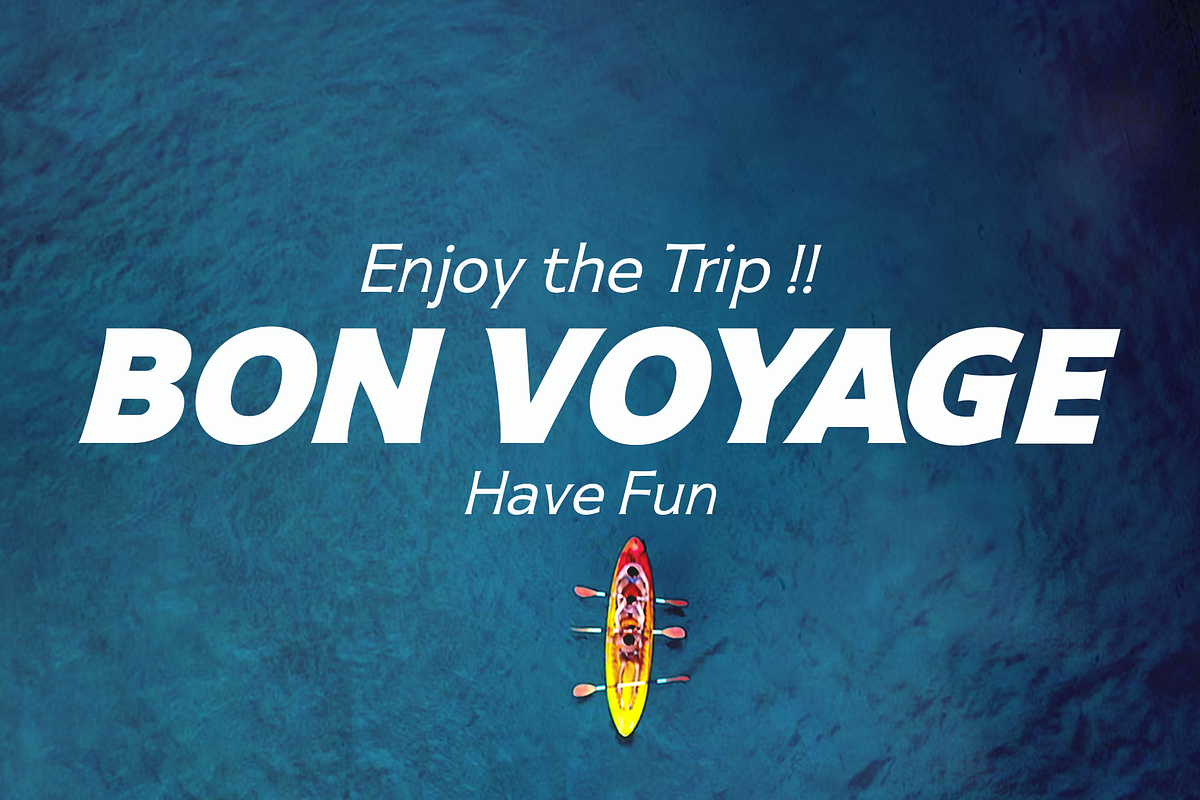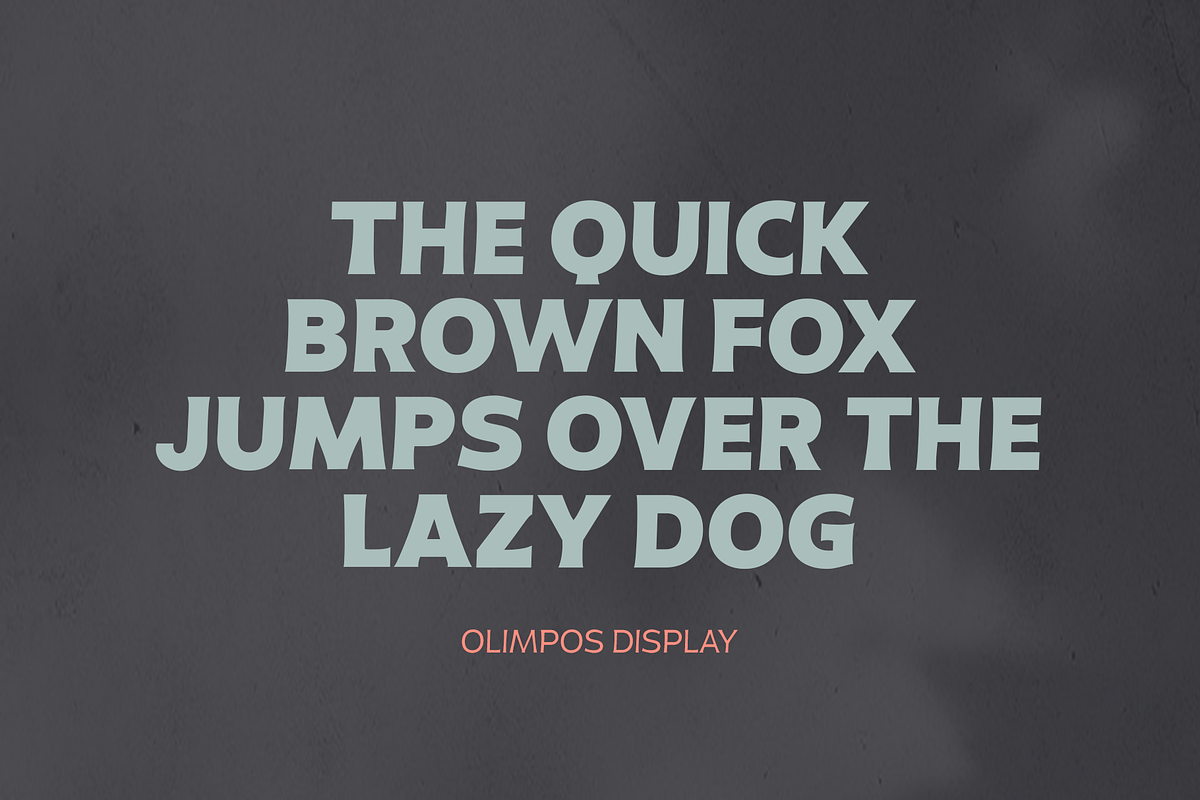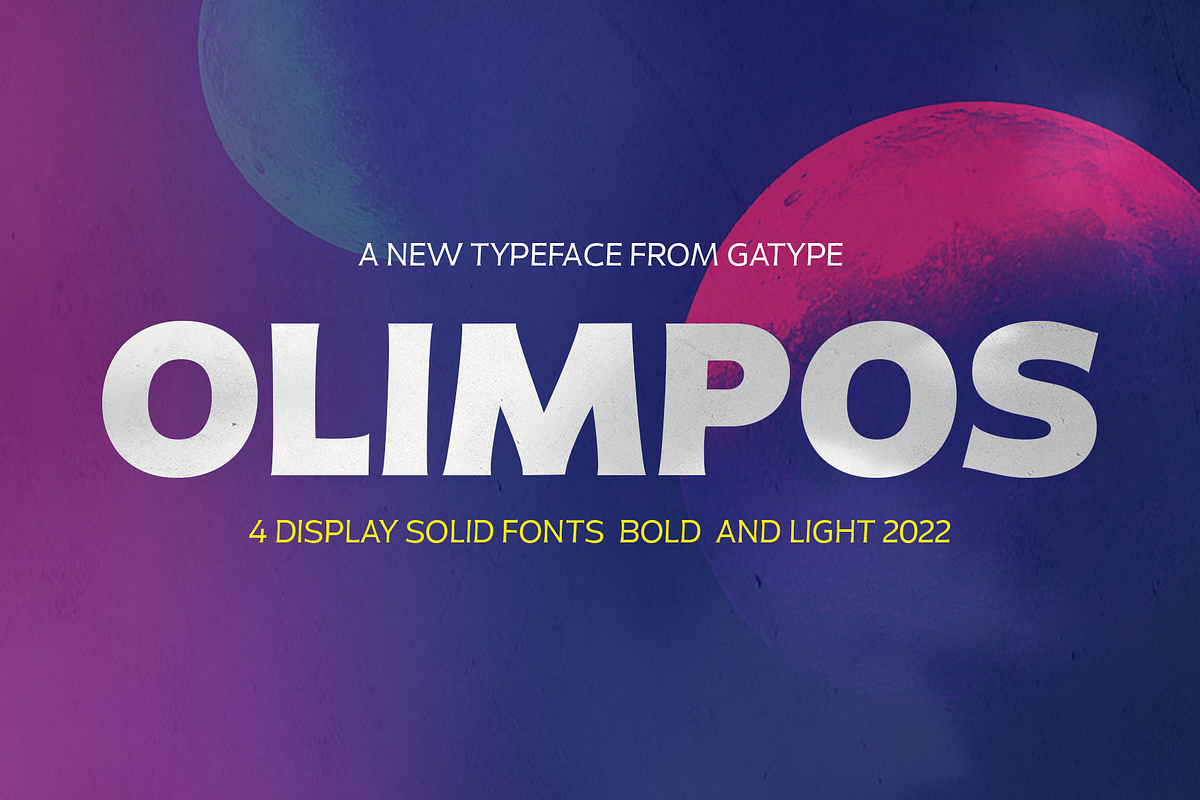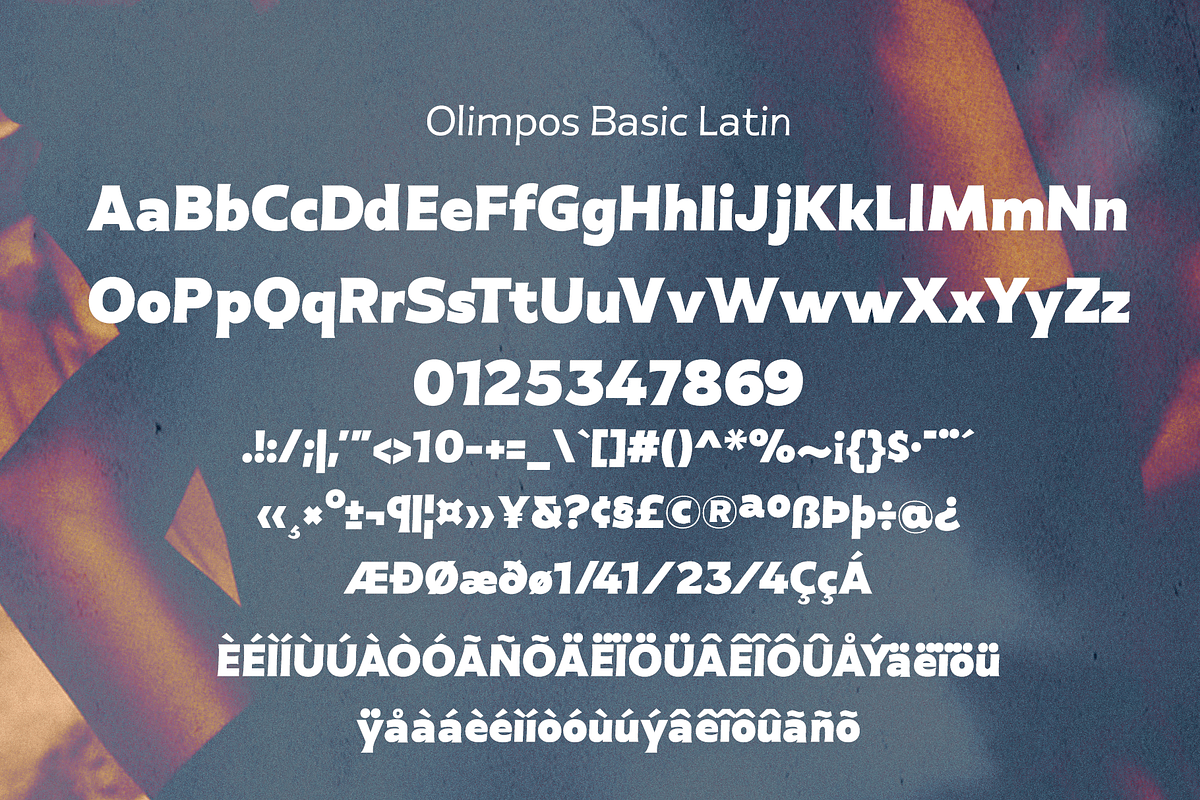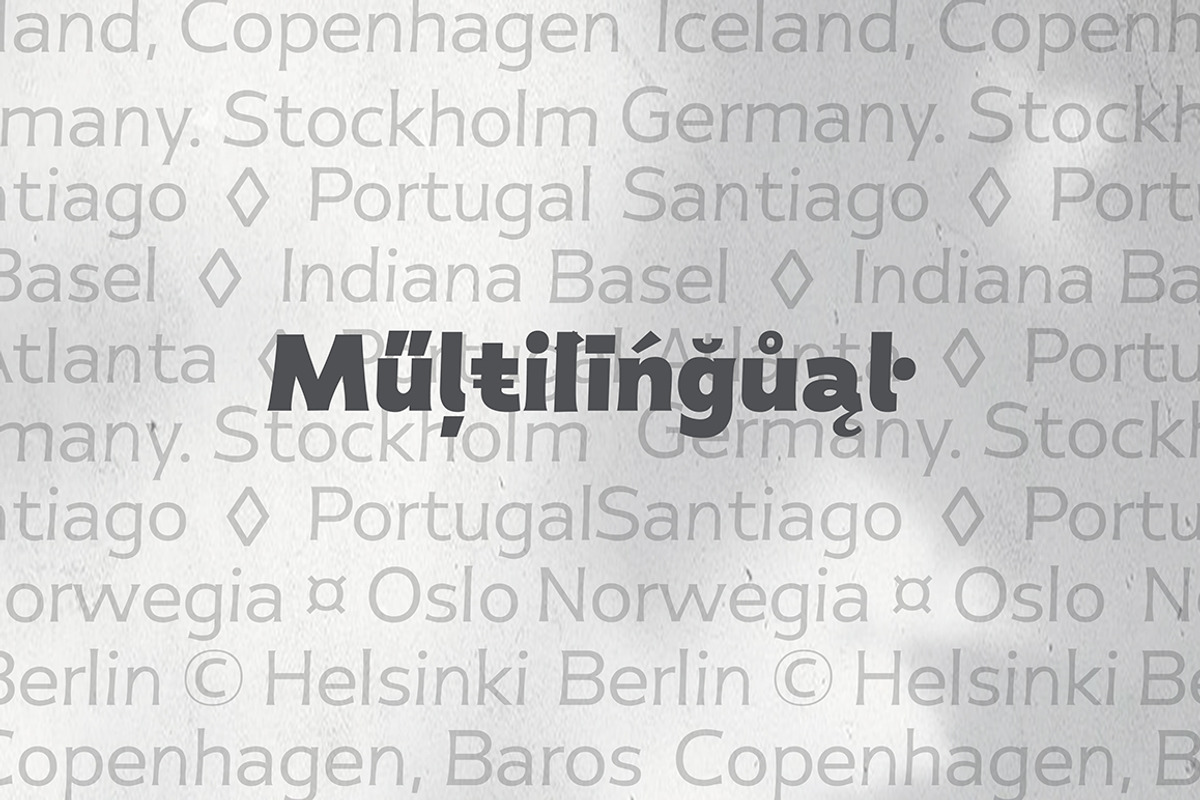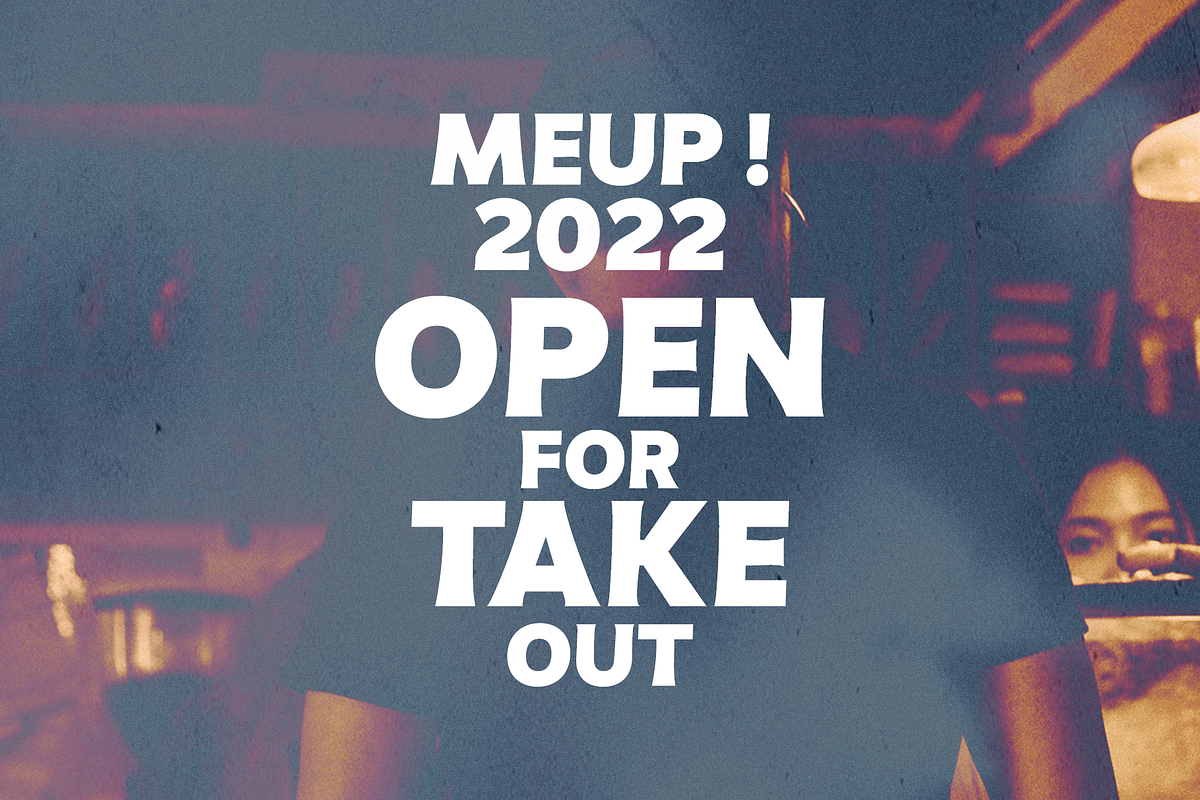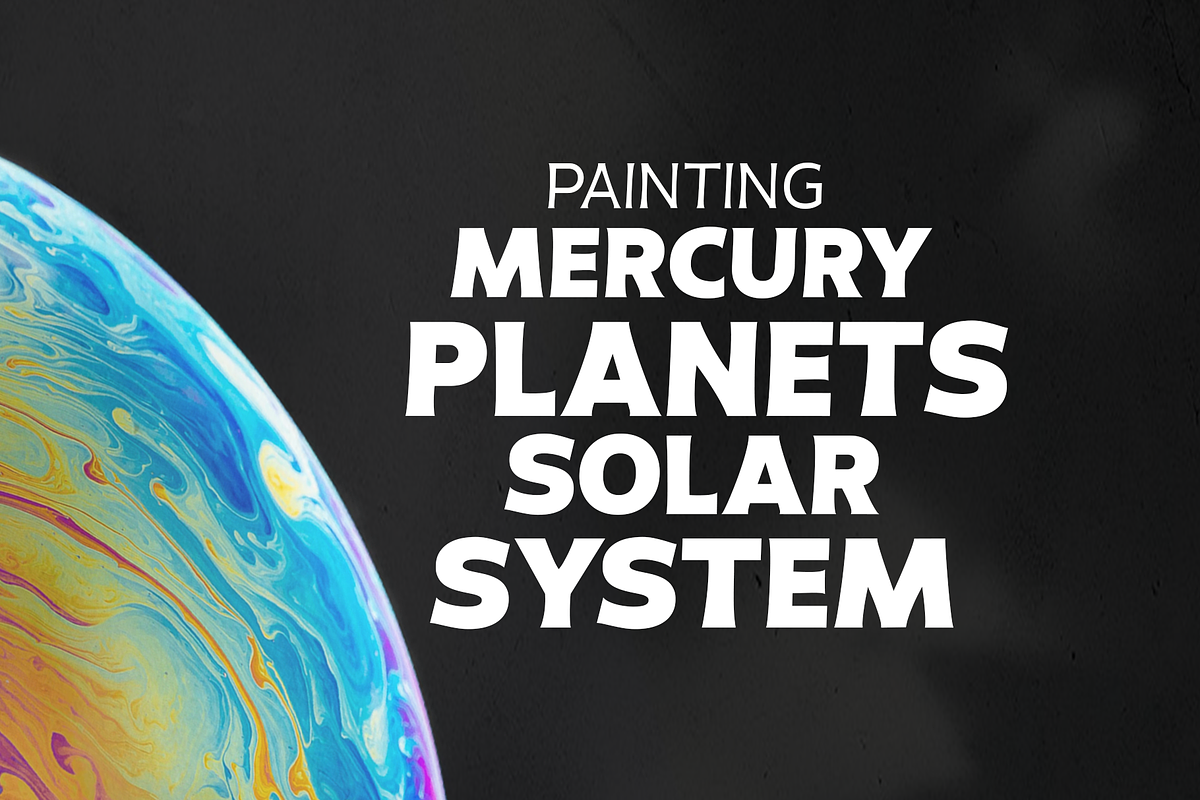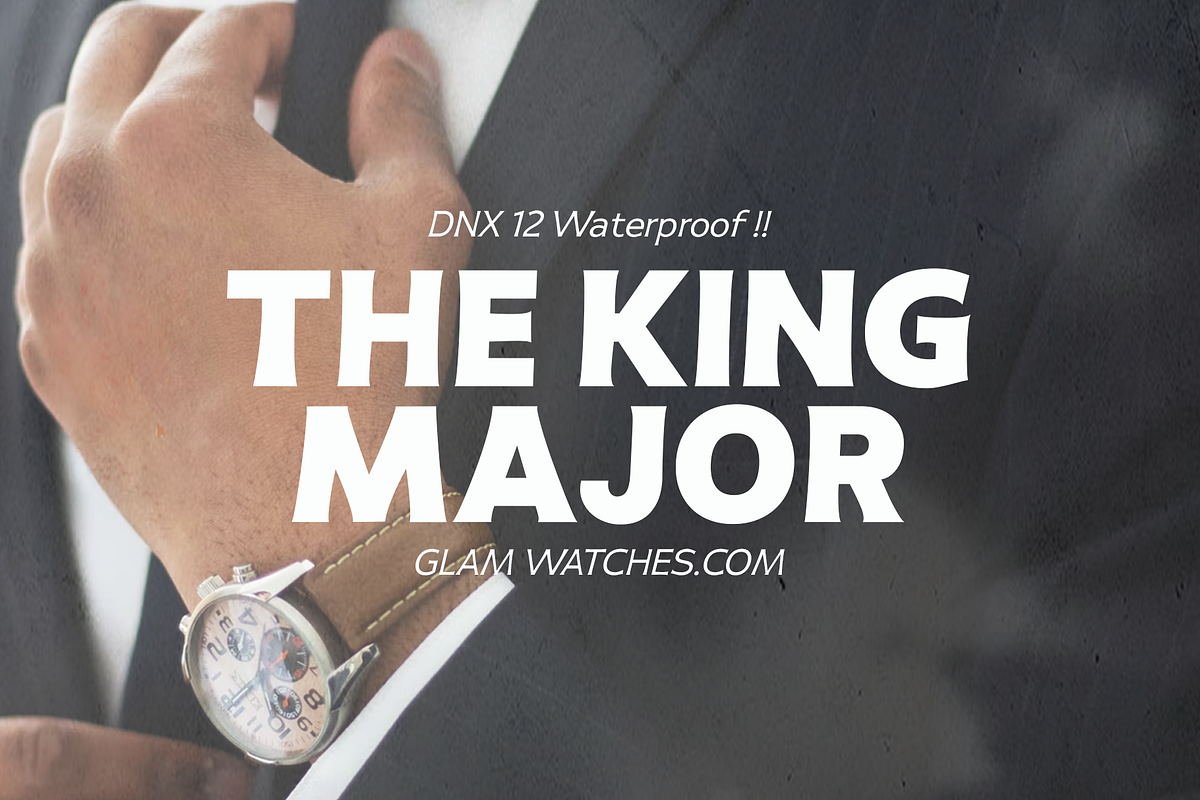
Olimpos
Olimpos is a Display sans font that is absolutely perfect for editorial headlines. Her large, bold and slender figure is perfect for posters, t-shirts, and magazine covers. Reserved for capital letters only, this calm and bold typeface is a content creator's best friend.
This Olimpos is a modern sans-serif font that includes 4 weights of the normal style and the Italic style.